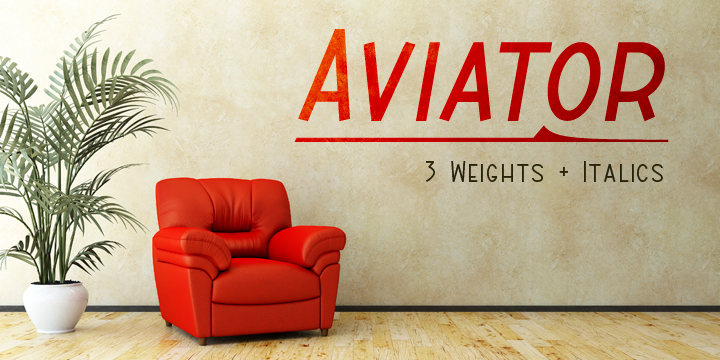
ABTS Aviator Font Free Download – A Vintage Aviation Typeface with Retro Heroism
Take flight with ABTS Aviator Font Free Download, a rugged display font inspired by classic aircraft insignia and wartime typography. Perfect for aviation brands, heritage packaging, and masculine designs, this font delivers authentic 1940s military character with modern readability.
Why ABTS Aviator Font Soars Above
1. Authentic Vintage Features
Weathered paint stroke texture
Slightly irregular letter positioning
Wing-inspired angular details
Aviation/military branding
Craft whiskey labels
Retro barbershop logos
War history book covers
Vintage travel posters
3. Technical Specs
Includes uppercase A-Z + numerals
Bonus aviation symbols (wings, propellers)
Multilingual support (Western Europe)
Creative Flight Plans
Man cave signage
WWII memorabilia labels
Vintage airplane models
Personal history journals
Aviation museum graphics
Heritage brand packaging
Americana restaurant menus
Motorcycle club patches
Designer's Hangar Tips
Combine with weathered metal textures
Use military-inspired color schemes
Add subtle grease pencil marks
Optimal Altitude:
36pt+ for full vintage impact
Works best with tight tracking
Ideal for short, powerful statements